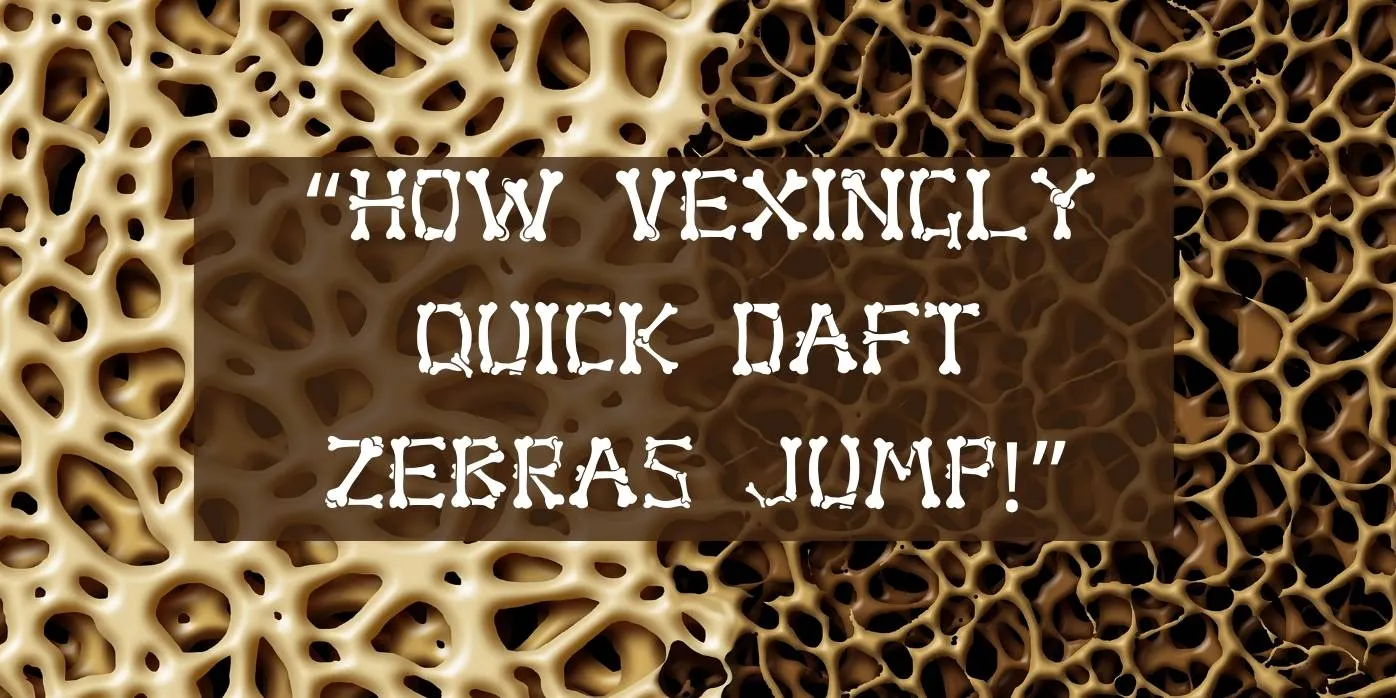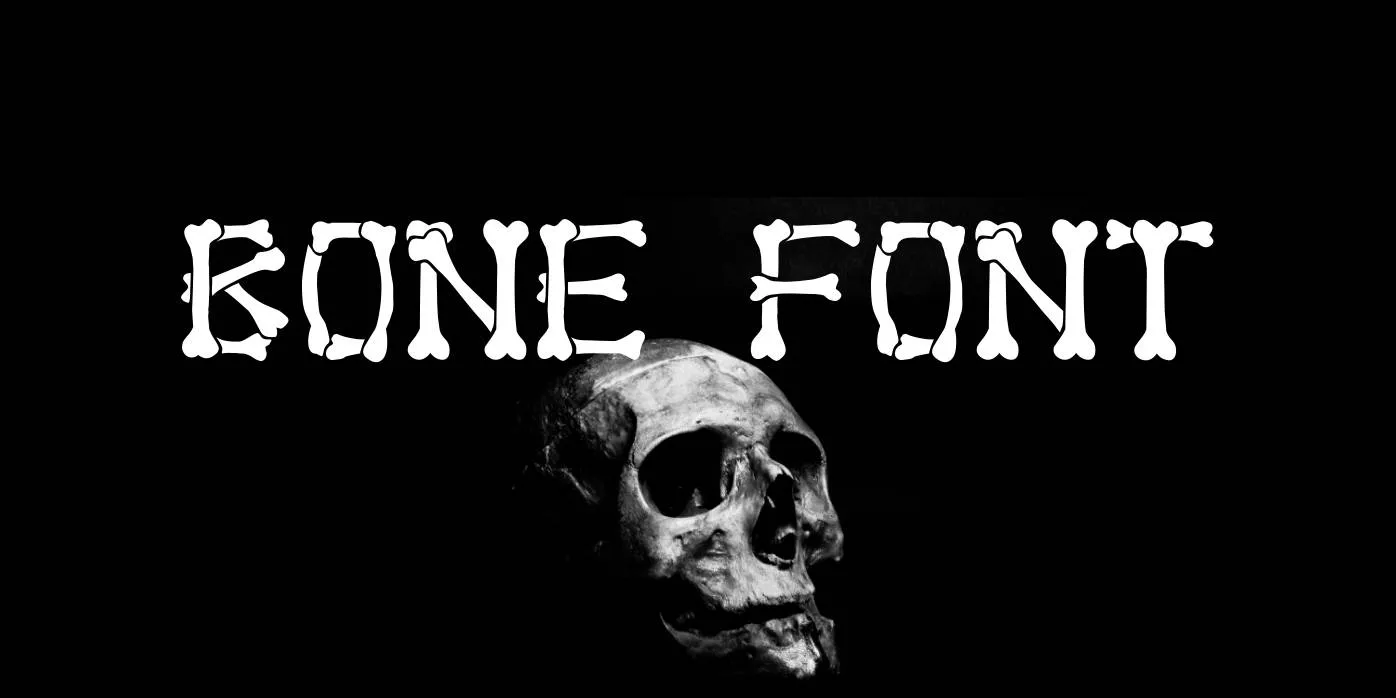
Bone Font
Here we are discussing the most interesting and comic typeface that is known by the name Bone Font. This staggering font was designed by reputable font designer  Haunted House. This font belongs to the Fancy typeface. This classic font has more than 62 unique and stylish characters like symbols, numerals, punctuations, and others.
This comic font is popular and perfect for various types of scary books covers and different Horror movies. An odd thing is that this scary font is created with bone. This awesome font looks like a bone which is mostly suitable for animal-related type designs. Porter Sans Block Font is the alternative font to this typeface that helps in various designs.
All designers choose this typeface for their related projects and functions.